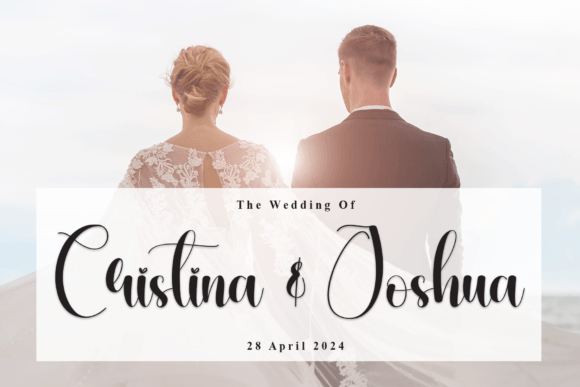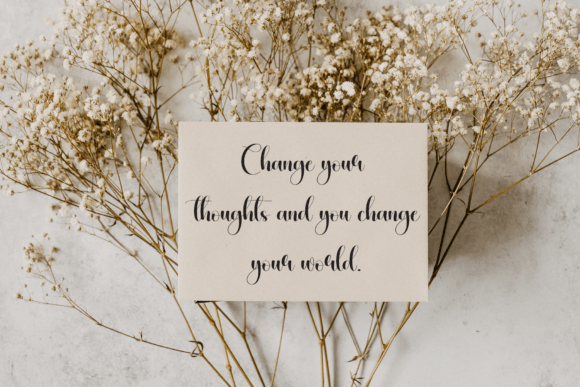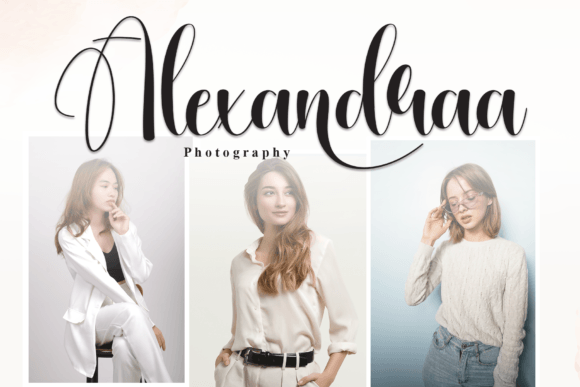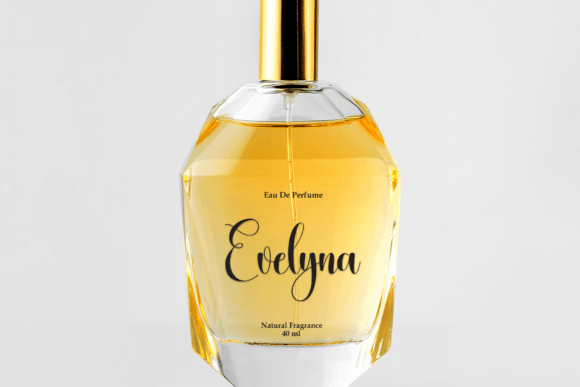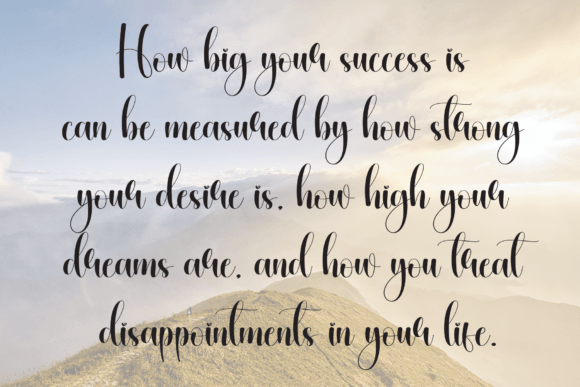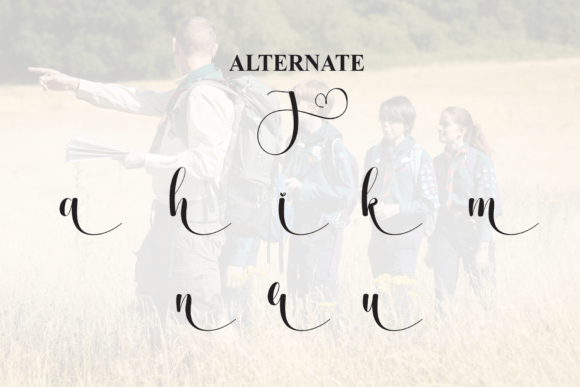
Introduction to Jamboree Font Font
Fonts play a crucial role in design, and the Jamboree Font font is a typeface that brings both character and versatility to any project. Whether you’re working on a branding project, a website, or a print design, the Jamboree Font font offers a unique style that can elevate your work.
Jamboree is a stylish and incredibly elegant script font.
It looks stunning on wedding invitations, thank you cards, quotes, greeting cards, logos, business cards and every other design which needs a handwritten touch .
The Jamboree Font font is more than just a typeface – it’s a design tool that helps you communicate your message with style and clarity. Its unique character set and versatile design make it suitable for a wide range of applications, from elegant invitations to bold headlines.
With its carefully crafted letterforms and balanced proportions, the Jamboree Font font ensures readability and visual appeal across all mediums.
The Jamboree Font font stands out with its unique design, exceptional readability, and versatility across various design applications.